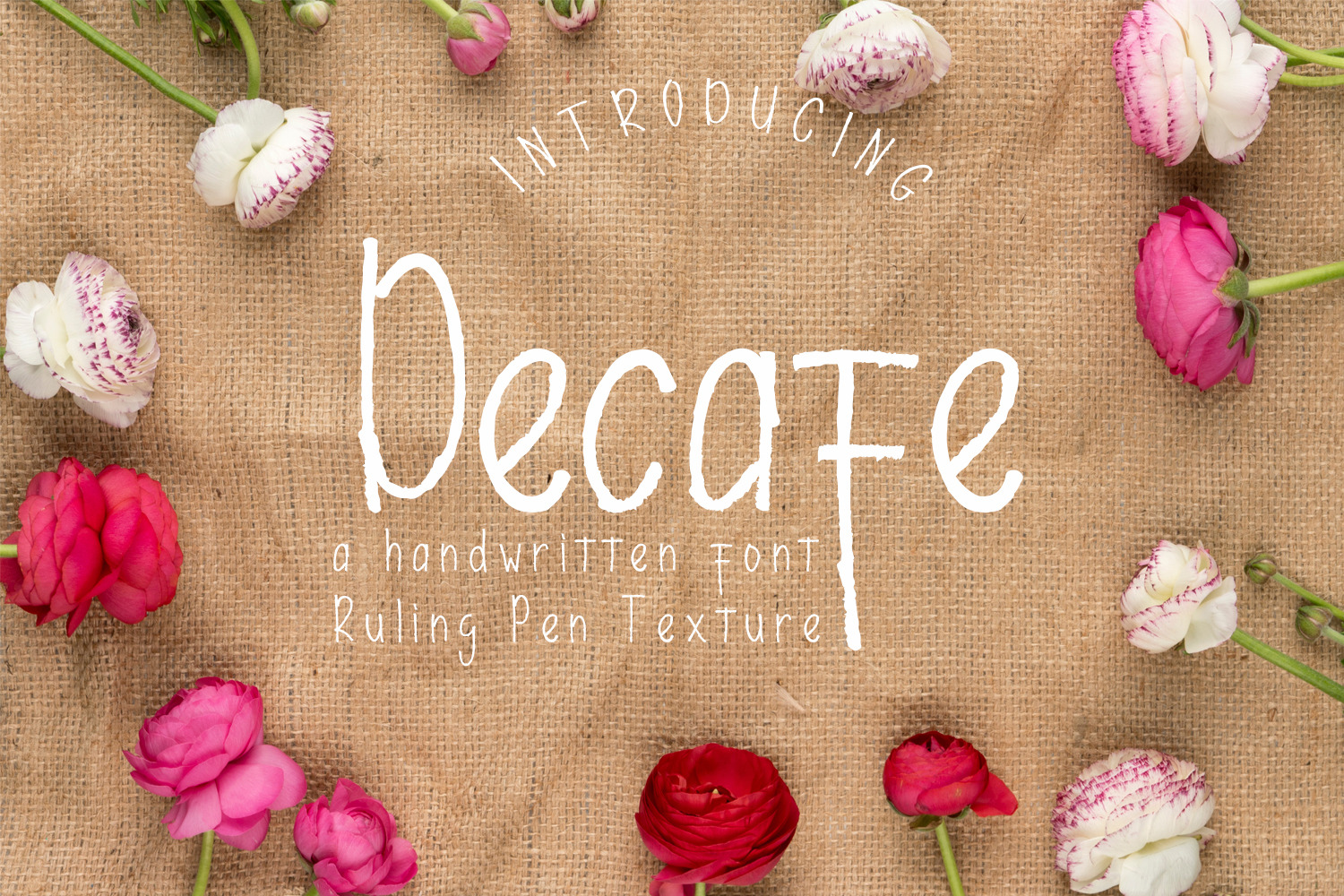
Decafe Font with Ruling Pen Texture
Introducing Decafe: wrapped with texture ruling pen so that this font has its own characteristics compared to other fonts that carry a distinctly distinct style.
Decafe is equipped with full simple Latin characters that meet the International character glyphs standard